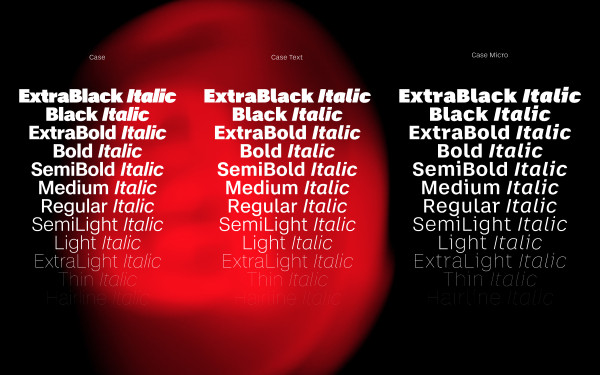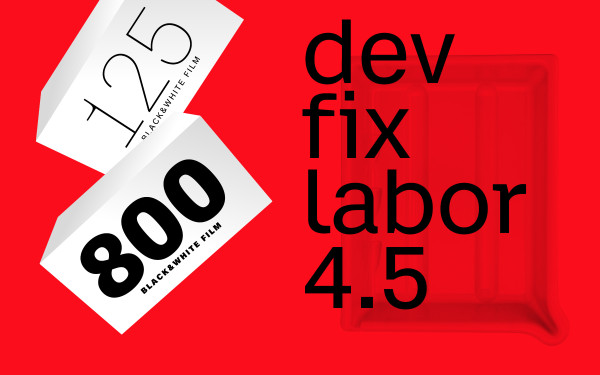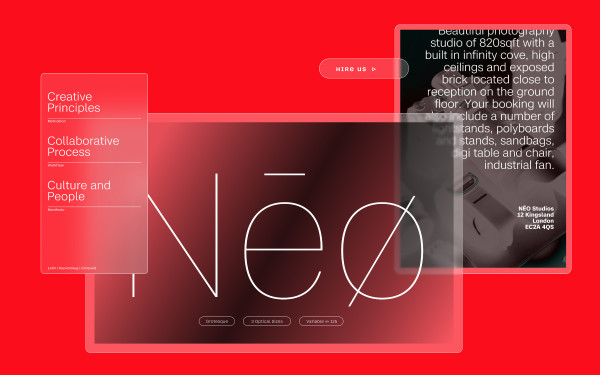
The Case Font
The Case™ Typeface Collection, is a refreshing alternative to the classics. To make it even more versatile for complex branding projects, Erik Spiekermann, Anja Meiners and Ralph du Carrois have revised it from the ground up and doubled the number of fonts  and characters.